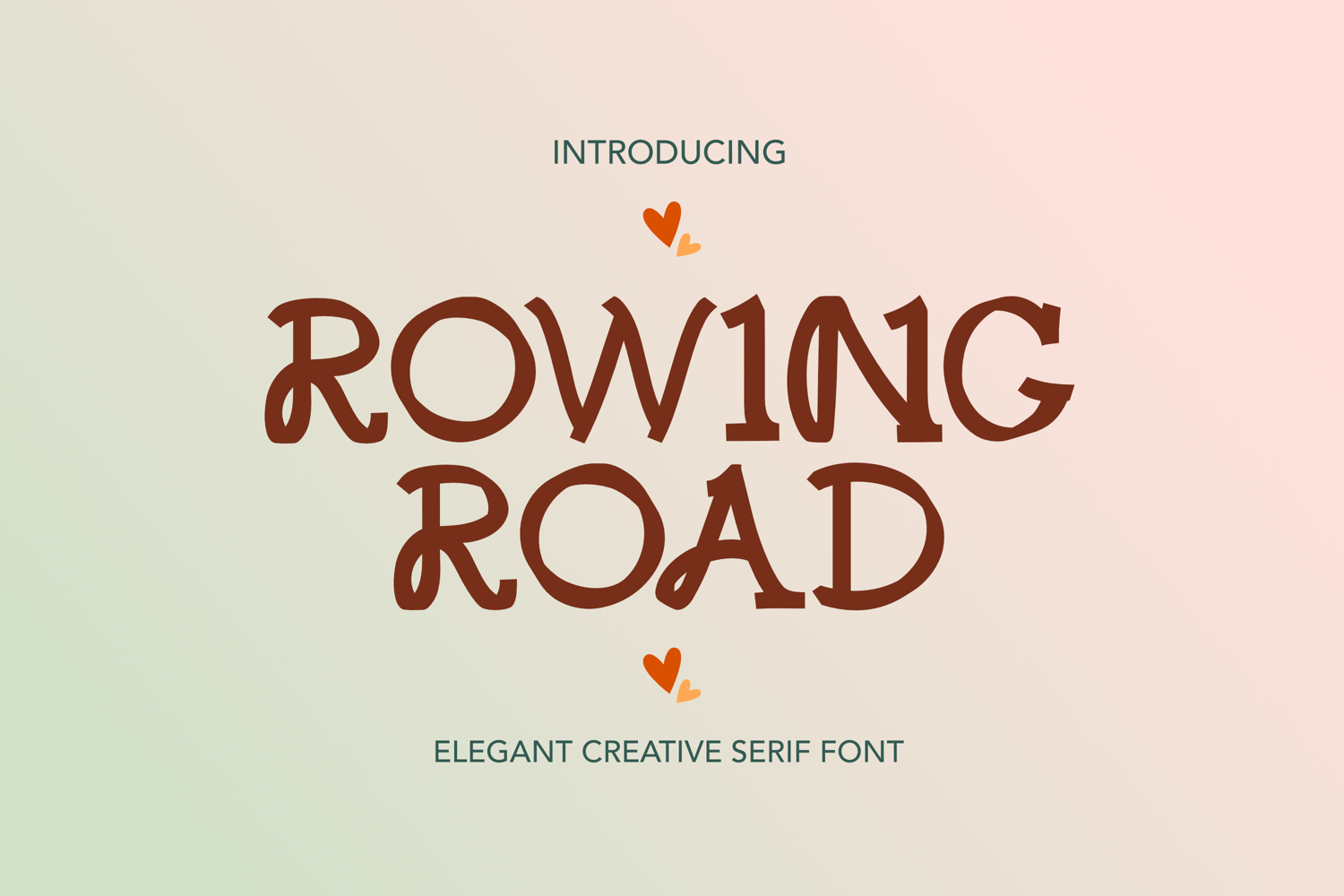
Rowing Road Handwitted Font
Rowing Road
This font features a playful, hand drawing aesthetic with a touch of fantasy. Uppercase and lowercase letters are formed with smooth, flowing strokes and subtle decorative curves, giving the typeface a whimsical character. The shapes are bold and slightly irregular, creating a warm and organic feel reminiscent of handwritten calligraphy.
This typeface is ideal for branding, posters, children’s books, packaging, and any design that needs a charming handwritten look.